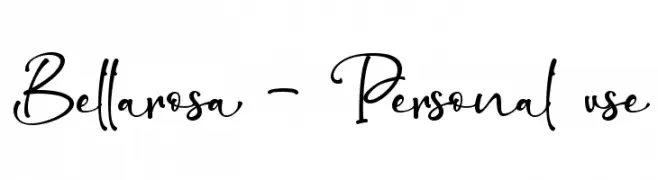
A tall, thin, and modern sans-serif font with a minimalist design.
A playful, casual handwritten font with irregular strokes and a slightly slanted appearance.
A dynamic, cursive handwritten font with fluid strokes.
An artistic font resembling ancient cave drawings with unique, decorative characters.
Primitive pictographic symbols resembling ancient cave drawings.
A lively, handwritten cursive font with medium contrast and fluid strokes.
A delicate, flowing script font with elegant, thin lines and whimsical curves.
A lively, handwritten font with fluid cursive letterforms.
A dynamic and expressive cursive script font with a handwritten appearance.
A bold, distressed font with a vintage, hand-crafted appearance.
A flowing, cursive font with elegant loops and a handwritten appearance.
A playful, casual handwritten font with smooth curves and a friendly appearance.
A playful and elegant handwritten script font.
A playful, cartoon-inspired font with bold, rounded characters featuring whimsical designs.
A dynamic and expressive handwritten font with fluid, continuous strokes.
A modern, playful font with integrated arrow elements and rounded bold characters.
A futuristic, geometric font with bold, angular lines and rounded edges.
A bold, italicized font with a futuristic and angular design.
A playful, casual handwritten font with irregular strokes and a whimsical feel.
A bold, futuristic font with diagonal line patterns and geometric shapes.
A playful and bold font with whimsical, heart-accented characters.
A cursive, handwritten-style font with elegant, flowing strokes.
A bold, organic font with intricate, nature-inspired patterns.
A fluid, cursive font with a natural handwriting style.
An elegant, flowing script font with a handwritten style.
A sophisticated script font with elegant, flowing strokes and a personal touch.
A bold, distressed sans-serif font with a modern, edgy look.
A playful, handwritten-style font with bold, dynamic strokes.
A playful, hand-drawn font with bold, rounded letters and a whimsical style.
A bold, playful font with bulbous, cartoonish characters.
A bold, brush-style font with dynamic, irregular strokes.